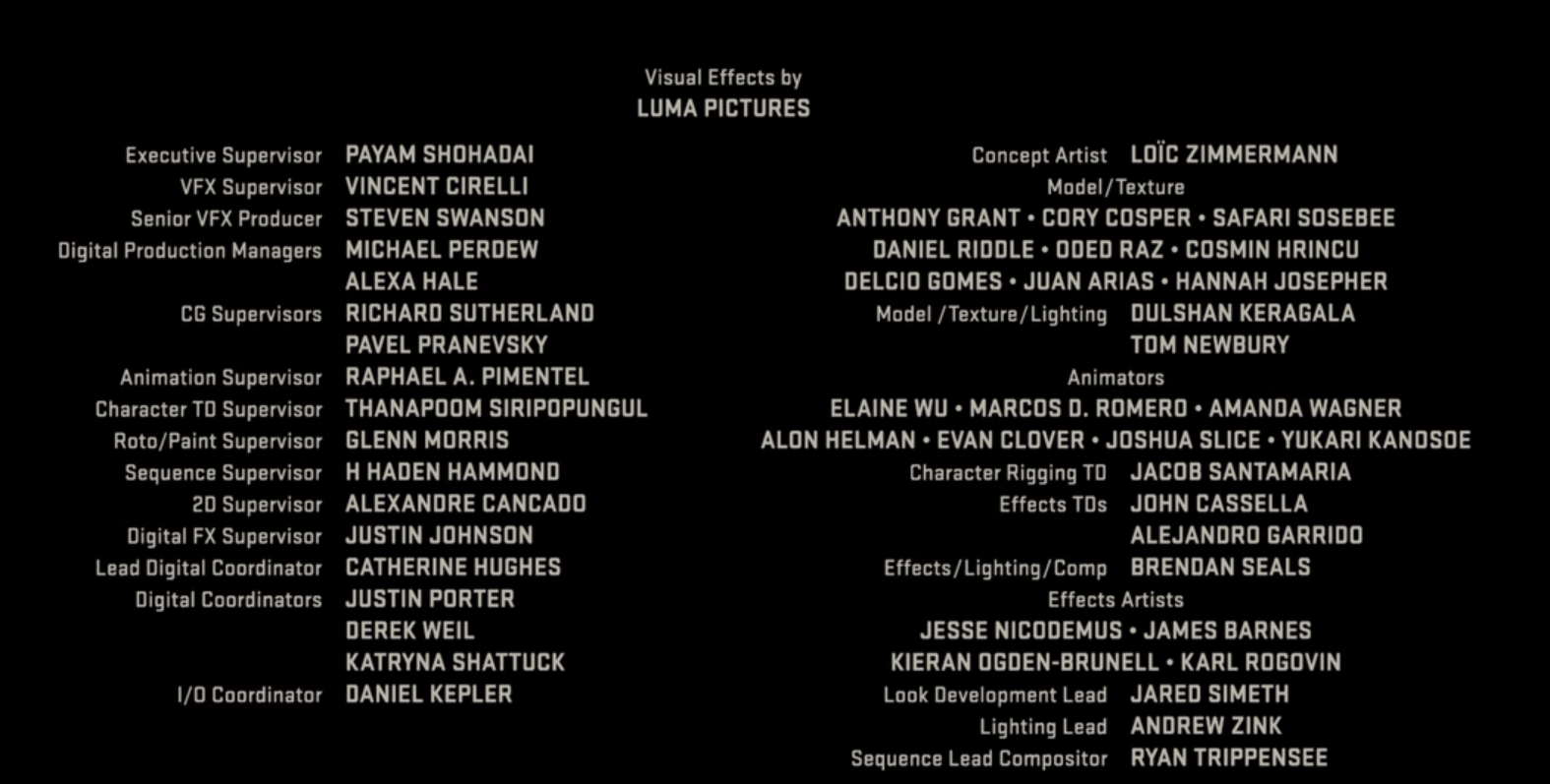
+23 Movie Credit Fonts Ideas
Hollywood Has Always Used Interesting Typefaces In Cinema, And In Response Movie Fans Have Created These.
It can easily be matched to an incredibly large set of projects, so add it to your creative ideas and notice how it makes. Click to find the best 33 free fonts in the movie credits style. Web looking for movie credits fonts?
Web Here Are Some Fonts You Could Check Out For Billing Credits:
Movie credits is simple entertainment font. Due credit is a condensed sans serif font that comes in four different weights: Web arguably the most popular and familiar movie font of all time is movie credits entertainment.